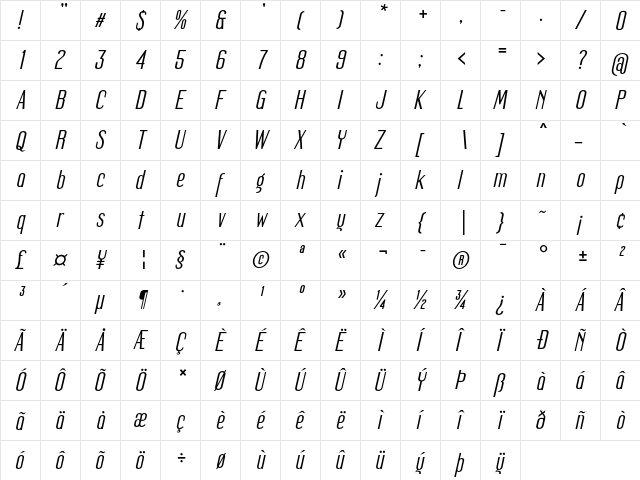
Mager Italic
| Designer | Silvan Kaeser |
Design Context for Mager Typeface
Mager takes a measured approach to typography — its balanced proportions and neutral character make it a reliable workhorse for both digital and print work. The slanted form adds forward momentum and visual energy.
Pro Tip: Try Mager for annotation and caption copy alongside an upright companion — the contrast in angle creates a dynamic but ordered typographic system.